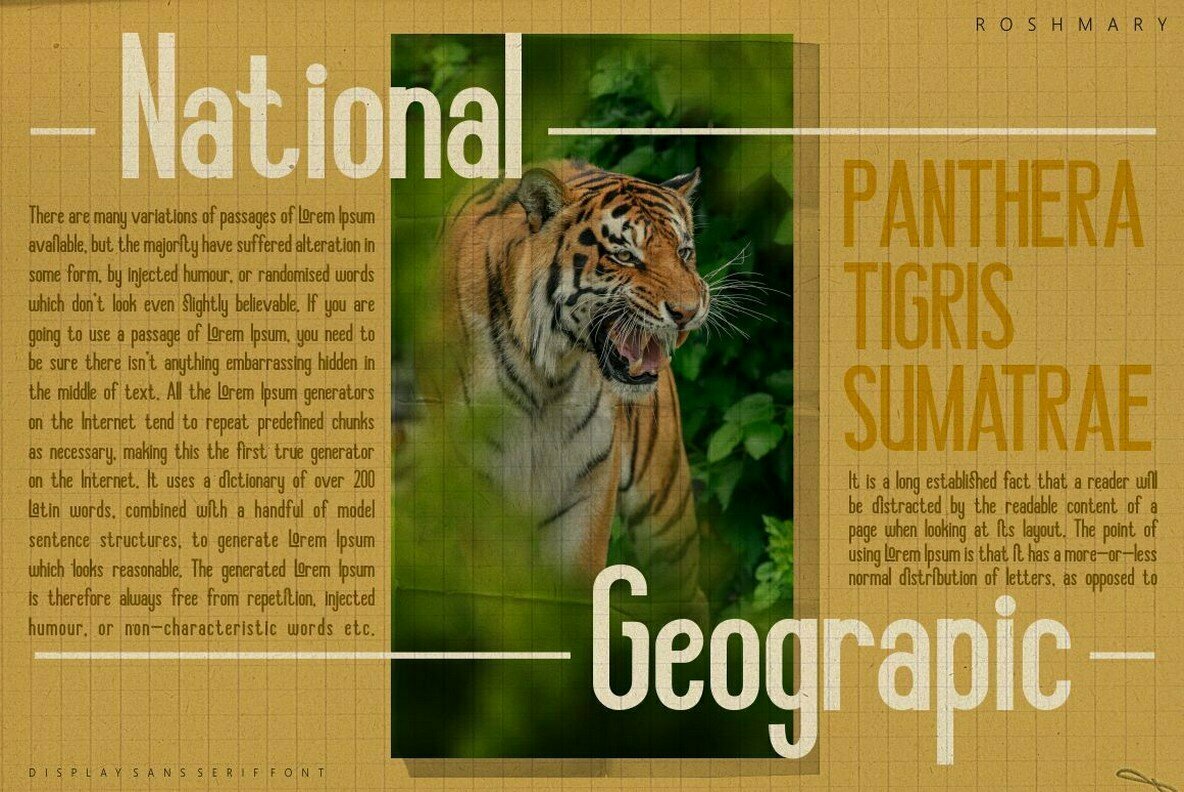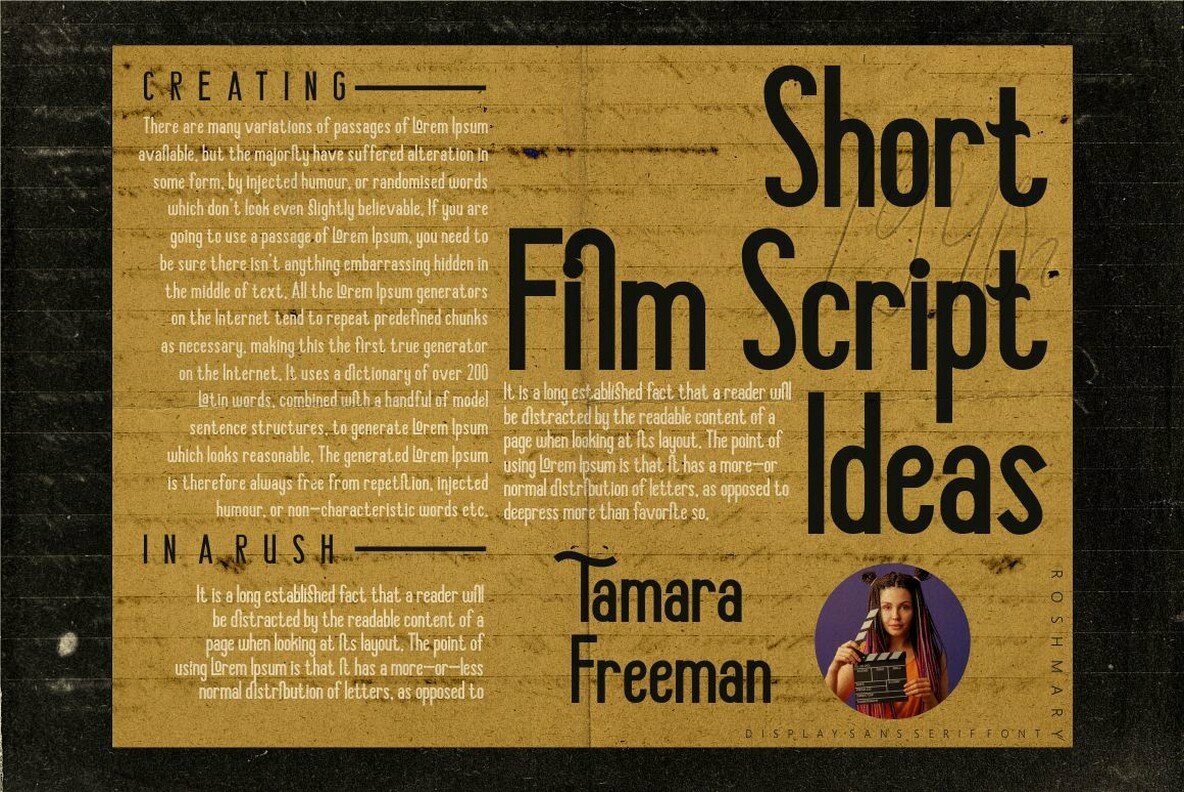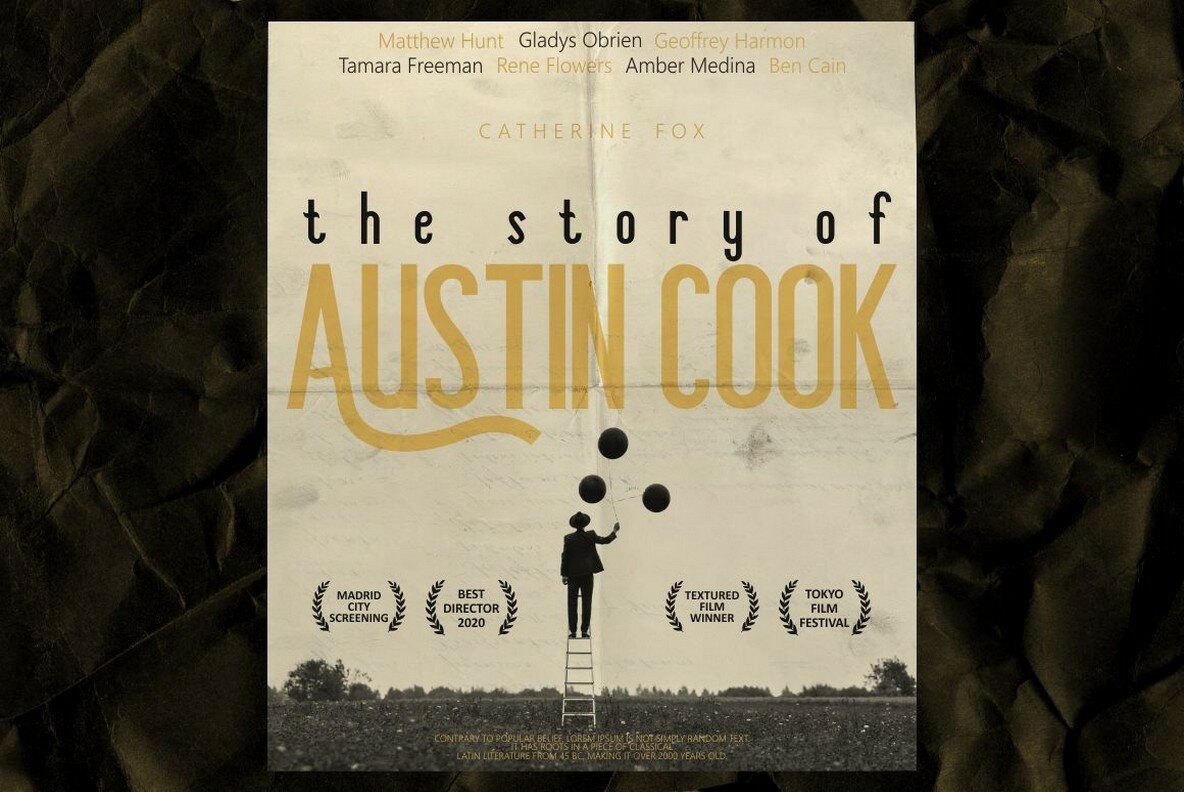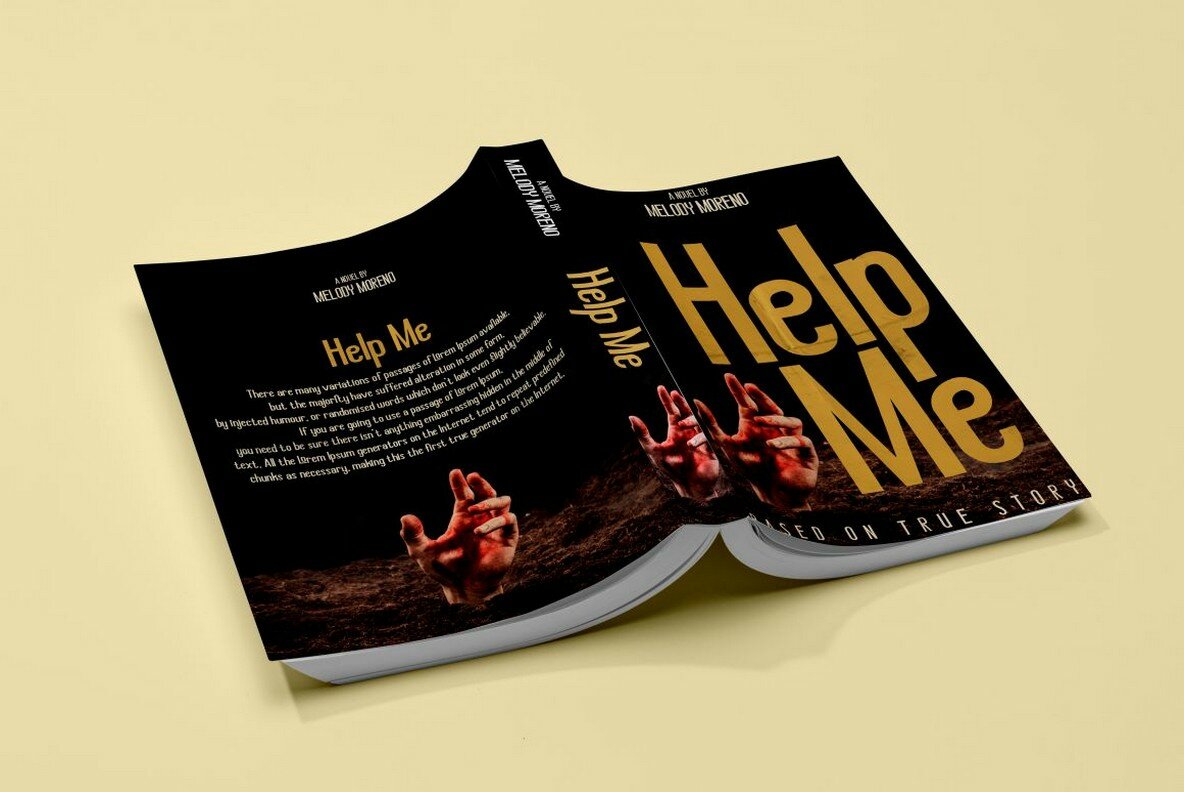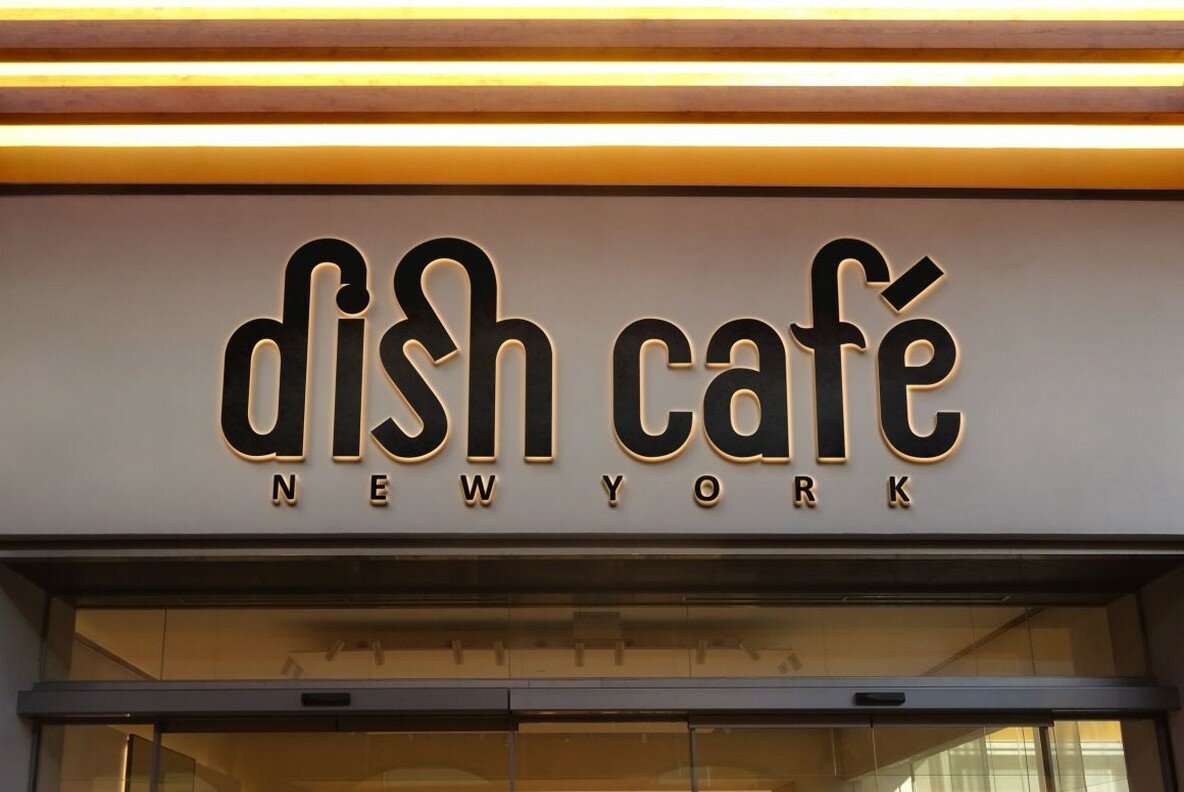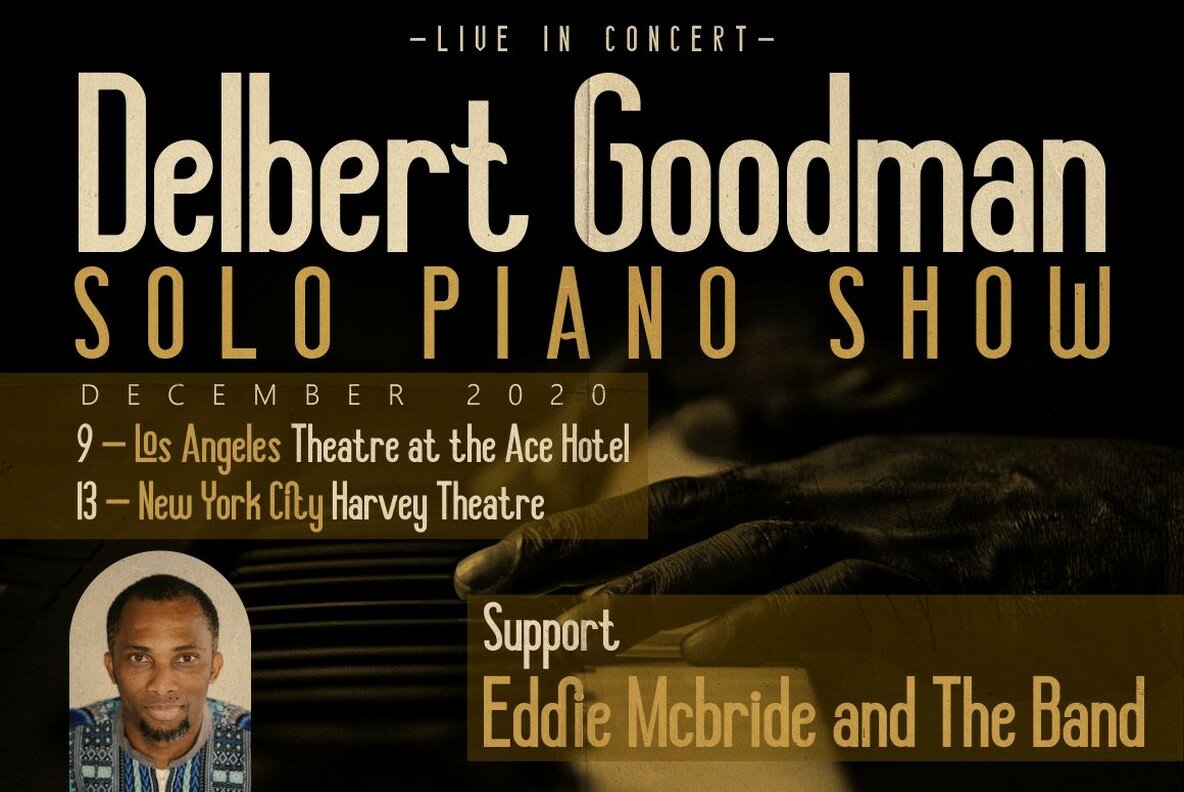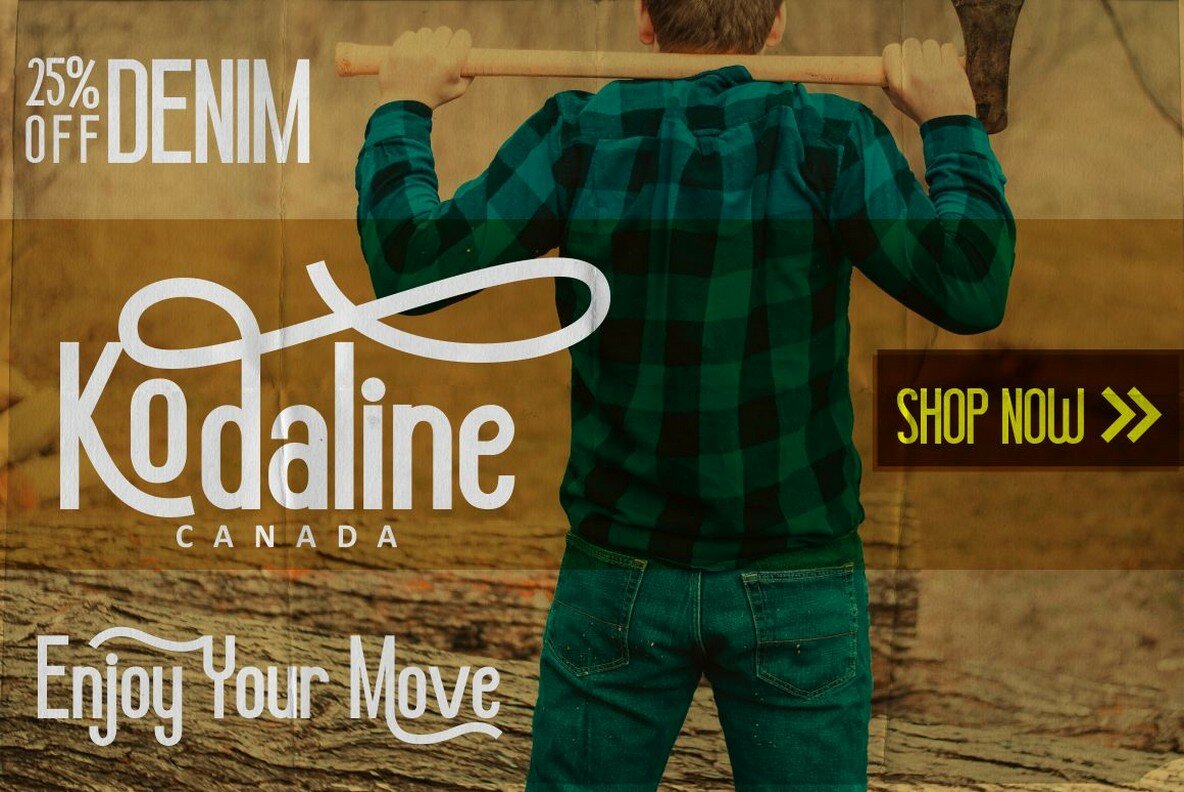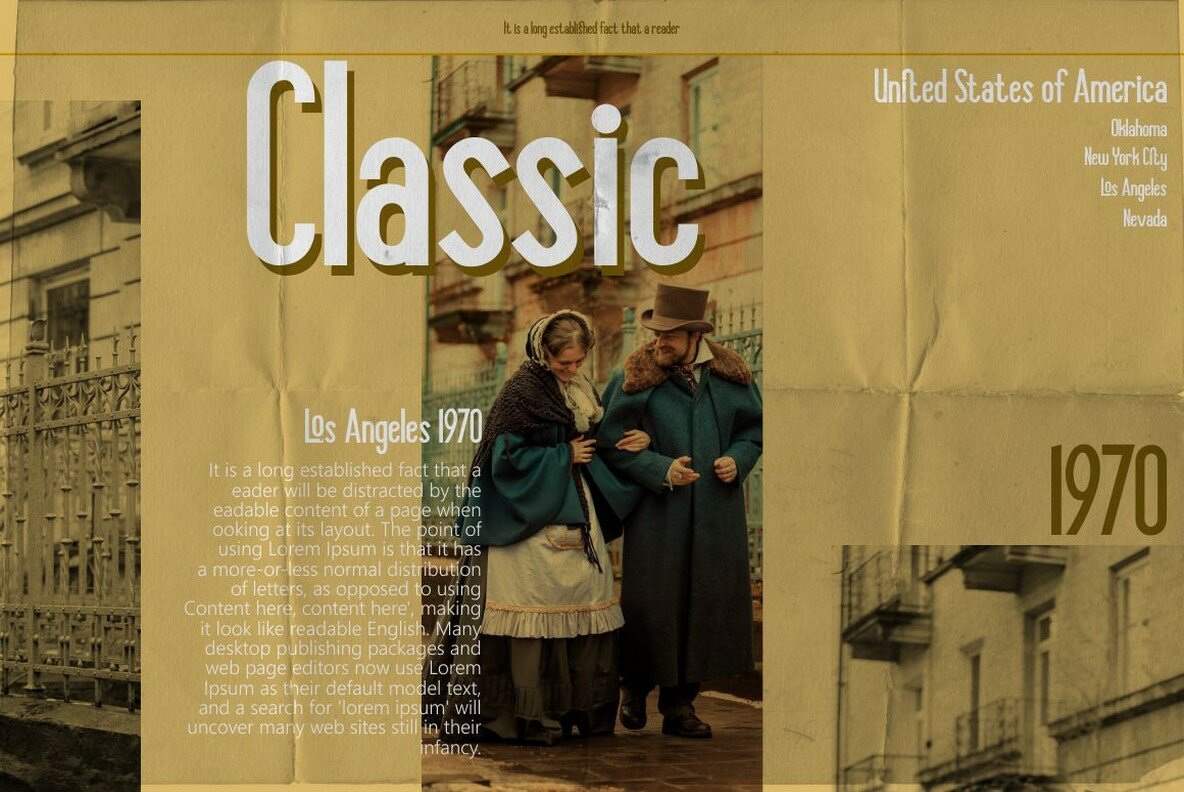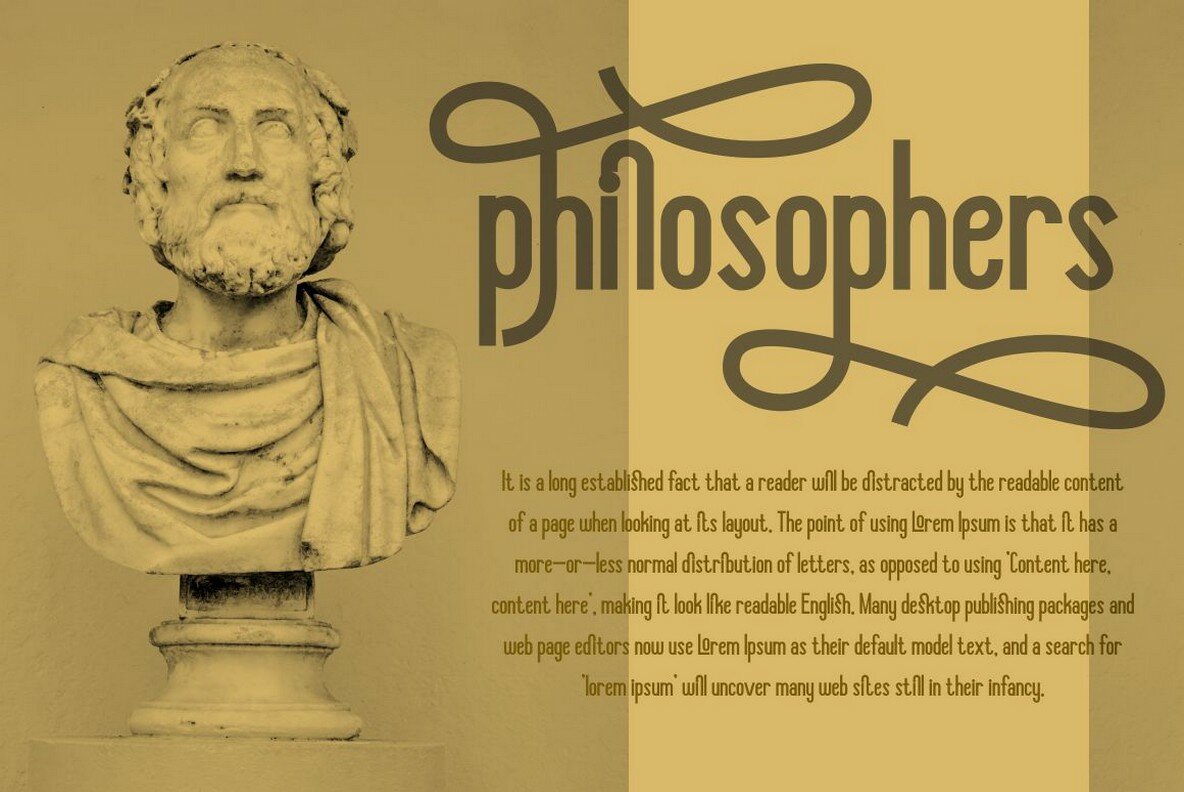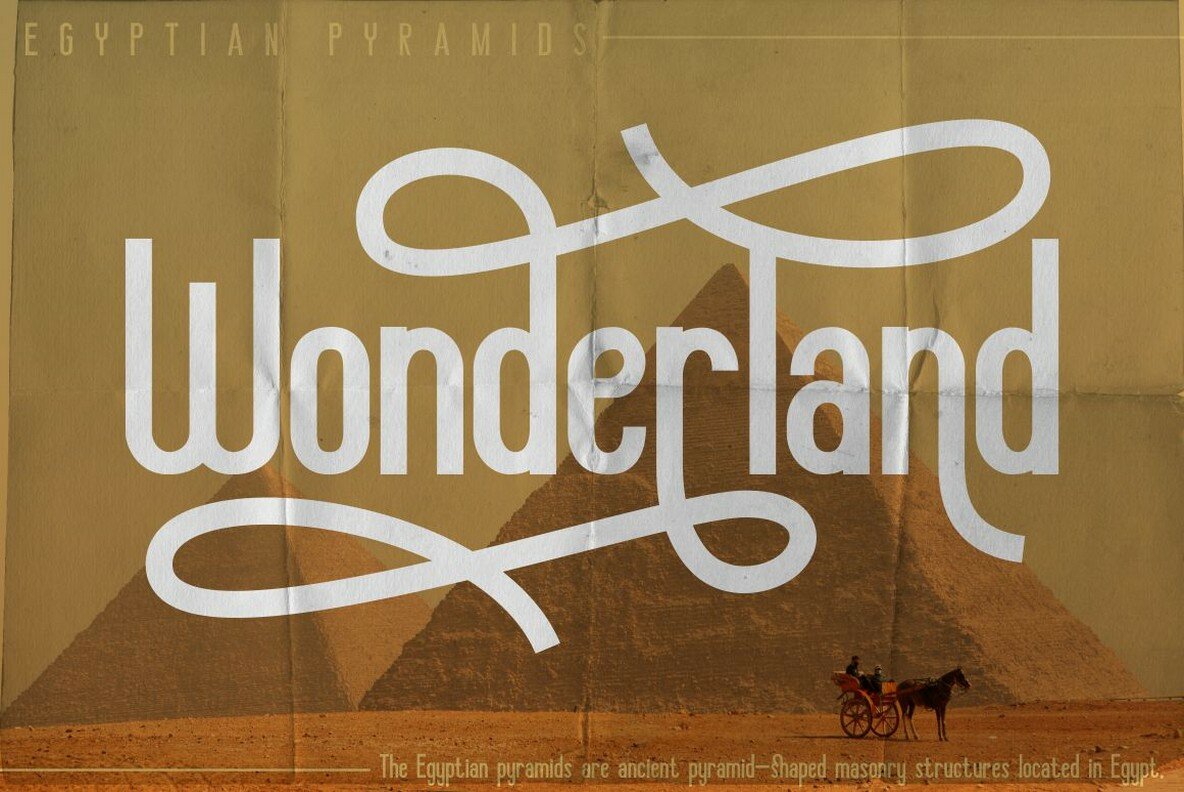
Roshmary Font
Roshmary
The Roshmary font is a standout choice for designers seeking a clean and impactful sans serif typeface. Its bold character, enhanced by beautiful ligatures and an array of alternative glyphs, adds depth to any design project. Suitable for a variety of applications such as headlines, posters, logos, and social media, Roshmary flawlessly combines simplicity with elegance. Whether crafting packaging or designing eye-catching quotes, Roshmary's open type features unlock a multitude of creative possibilities. Perfect for any project that demands attention and style.Roshmary: A Bold Display Sans Serif